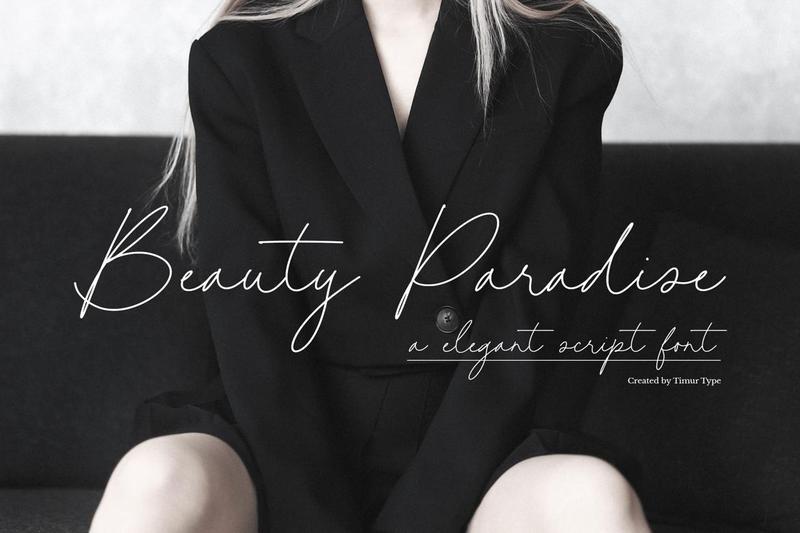
Beauty Paradise Font 6FTJA34
Beauty Paradise A Elegant Script Font, which was created with great care and specially created for you.
Beauty Paradise is perfect for product packaging, branding project, megazine, social media, wedding, or just used to express words above the background.